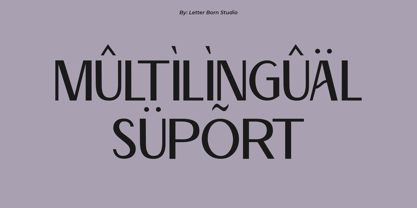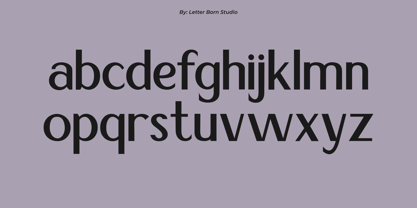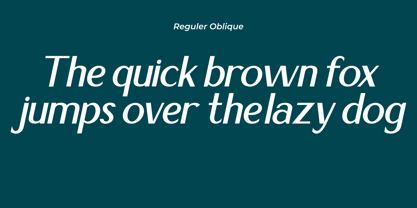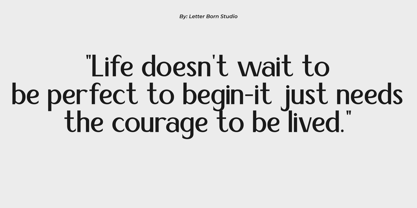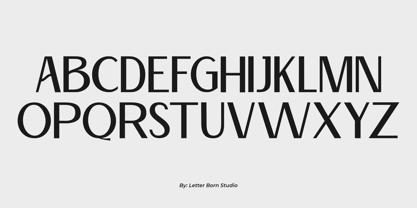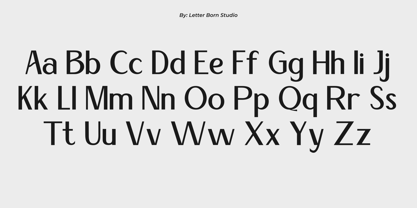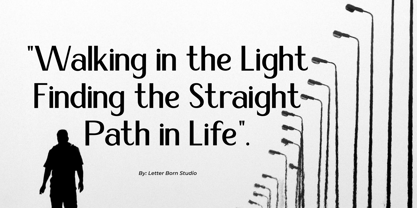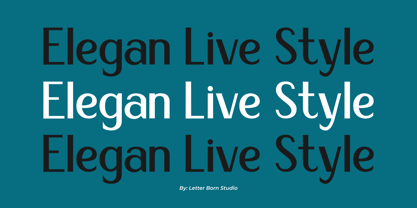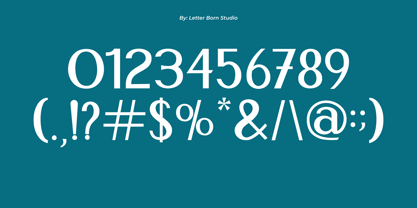
Sania Gracia
The Sania Gracia Font Family was designed by Firman Satrio and published by Letter Born Studio. Sania Gracia contains 2 styles and family package options. More about this family
Sania Gracia Regular brings an elegant feel with a touch of modern classic. Its smooth lines and balanced proportions make it perfect for branding, invitations, logos, and editorials. Elegant, professional, yet effortlessly graceful.
Sania Gracia Oblique offers a slanted version that's more expressive and dynamic. Ideal for highlighting quotes, headings, or any design that needs a creative touch. Still graceful, but with a bold twist.